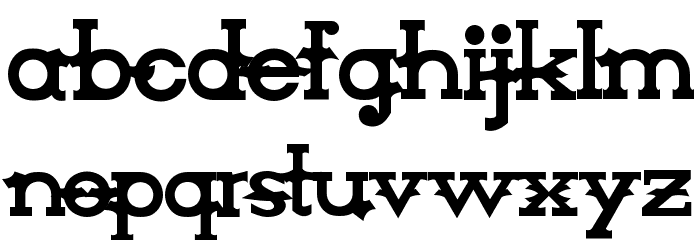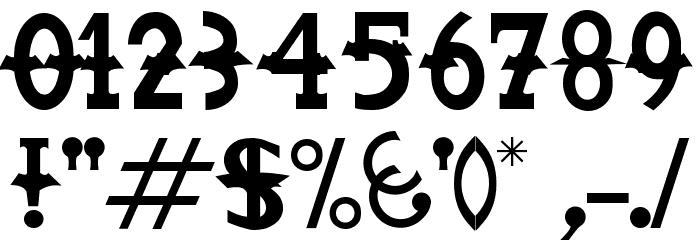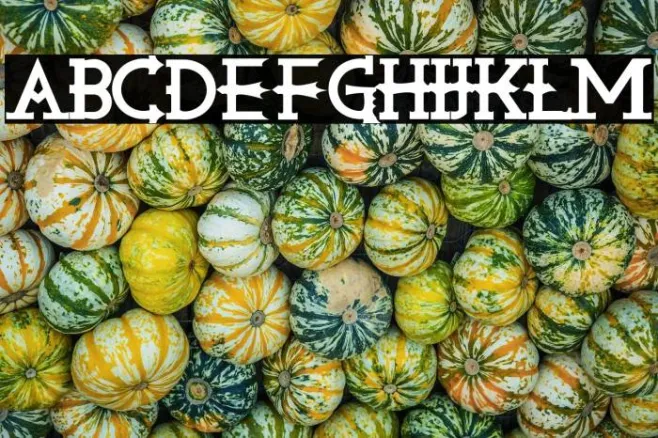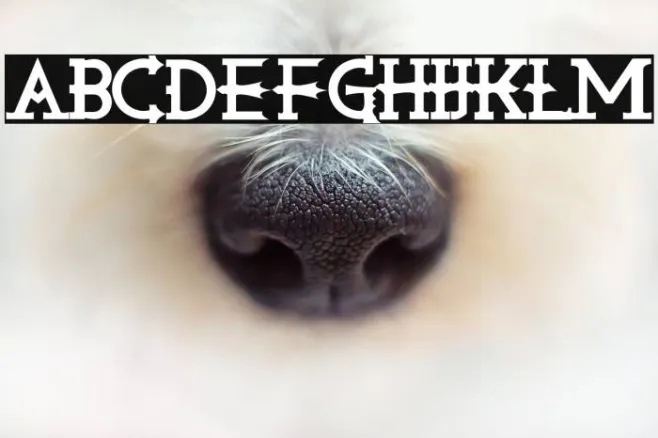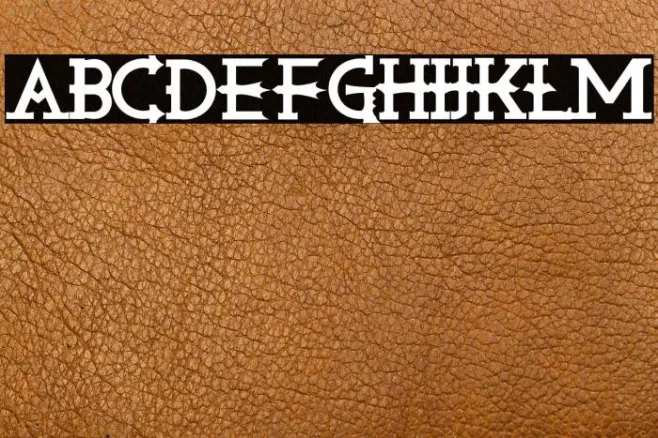
Amorphica Font
This font features a unique and bold design with a decorative flair. The characters are characterized by sharp, angular serifs and distinctive cut-out shapes that give it a modern and edgy appearance. The uppercase letters are particularly striking, with their bold lines and intricate details. The lowercase letters maintain the same stylistic elements, ensuring consistency throughout the typeface. Numbers and special characters are equally bold and feature the same decorative elements, making them stand out. This font is ideal for projects that require a strong visual impact and a touch of creativity.
A bold, decorative font with angular serifs and unique cut-out shapes.
- Font: Amorphica
- Proposed Projects: Ideal for branding, poster design, album covers, and any project needing a bold, artistic touch.